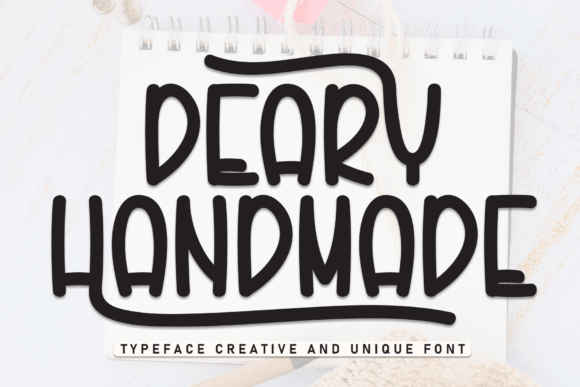
Deary Handmade
A First Impression That Speaks Volumes
The first time I saw Deary Handmade, it felt like stepping into a cozy, handcrafted studio. The letters are warm, inviting, and slightly whimsical, with a soft, organic feel that suggests craftsmanship and care. It’s not the kind of font you’d use for a corporate brochure, but it carries a quiet confidence that makes it stand out in the right context.
Deary Handmade is a script font with a handwritten flair, yet it maintains enough structure to avoid being too chaotic. The curves are smooth, and the spacing feels intentional, which is a rare balance in script typefaces. It has a personality that leans toward elegance without sacrificing approachability. This makes it a versatile choice for projects that require both charm and clarity.
Where Deary Handmade Belongs
While Deary Handmade is a display font, it doesn’t always need to be the star of the show. Its natural home is in logo design, packaging design, and brand identity where a touch of personality can elevate a brand. It works particularly well for creative industries like editorial design, social media graphics, and printable design.
Consider using it on product labels, invitations, or flyers where a personal touch is desired. It also pairs nicely with modern typography when used sparingly—like in headlines or quotes. For web design, it’s best reserved for headers or accents rather than body text, as its script nature can sometimes make small sizes less legible.
When working on Canva templates or Cricut projects, Deary Handmade adds a handmade aesthetic that resonates with crafters and small business owners. It’s especially effective in digital products like blog graphics, social media posts, and design assets that require visual interest without overwhelming the viewer.
When to Use Deary Handmade Carefully
Like any creative font, Deary Handmade needs to be handled with care. It’s not ideal for long blocks of text due to its decorative nature. In fact, using it for supporting text or body copy could distract from the message and reduce readability.
It’s best suited for headlines, short phrases, and brand marks. When used in premium packaging or merchandise, it adds a sense of quality and uniqueness. However, it should be balanced with serif or sans serif fonts to maintain hierarchy and ensure the overall design remains professional.
In social media graphics, Deary Handmade can be a powerful tool for creating eye-catching visuals, but it must be paired thoughtfully. Testing it alongside other font pairing options will help determine if it enhances or detracts from the overall message.
Readability and Brand Consistency
Readability is key in any design project, and Deary Handmade requires some attention to detail. While it looks great in large sizes, it can become less legible at smaller points. Always test it in black and white and check how it performs in different environments.
For brand identity, consistency is crucial. Using Deary Handmade across all materials can create a cohesive look, but it should be complemented by other fonts to maintain balance. A serif font might work well for body text, while a sans serif could provide contrast in headings.
Its handwritten font style can enhance audience trust and visual mood, especially in creative fields. However, it may not be the best fit for all audiences. A more formal script font or display font might be better for certain industries, depending on the desired tone.
Practical Designer Notes
Before committing to Deary Handmade for a client or business project, consider the following:
- Test it in black and white to ensure it remains legible and visually appealing in various contexts.
- Check small-size readability to confirm it works well in print and digital formats.
- Try it on real mockups to see how it integrates with the rest of your design.
- Compare uppercase and lowercase to ensure they align with your typographic goals.
- Review spacing to maintain a clean and professional look.
- Test it beside other font styles, such as serif, sans serif, script, handwritten, and display fonts.
Ultimately, Deary Handmade is a premium font that offers a unique blend of charm and professionalism. It’s a great choice for designers who want to add a personal touch to their projects without compromising on quality. With the right approach, it can be a valuable addition to your design assets and brand identity toolkit.